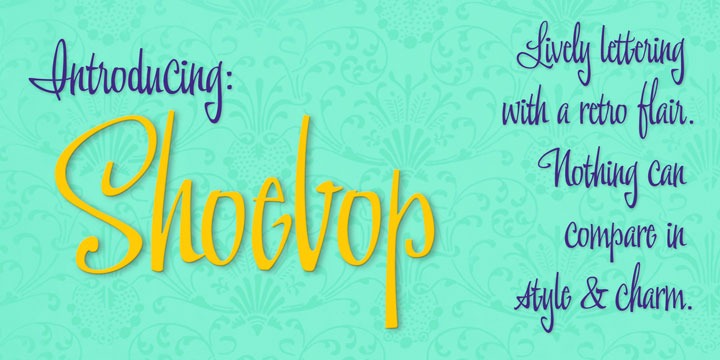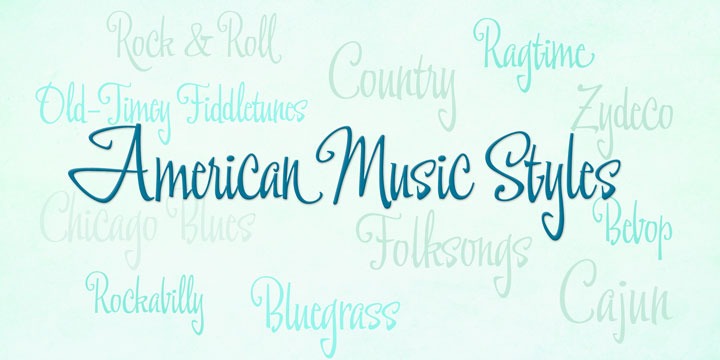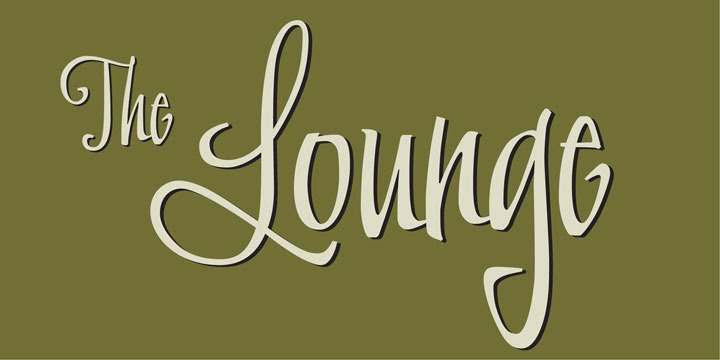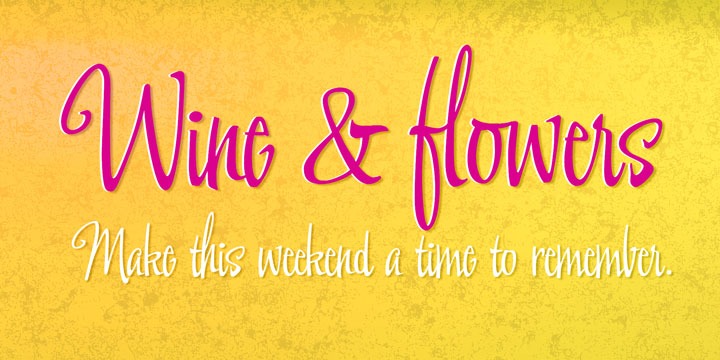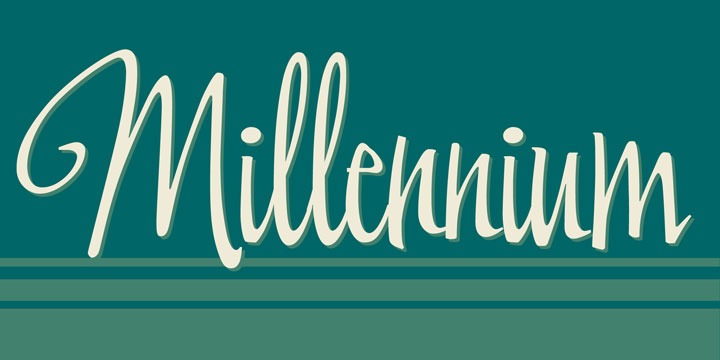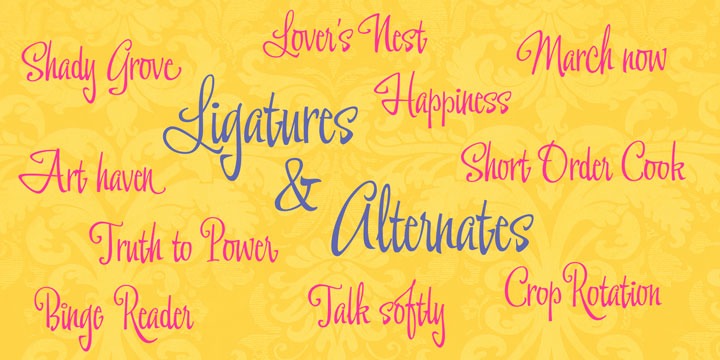
Shoebop
Font Family by Stephen Rapp
Shoebop is a playful, rhythmic brush script with a delightful retro flair. It's joyful presence is ideal for web and print headlines, posters, signage, logos, and greeting cards.